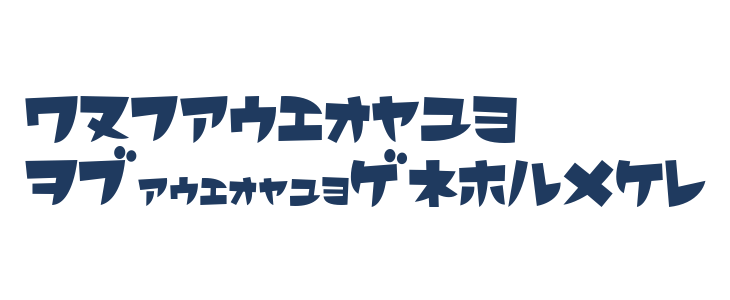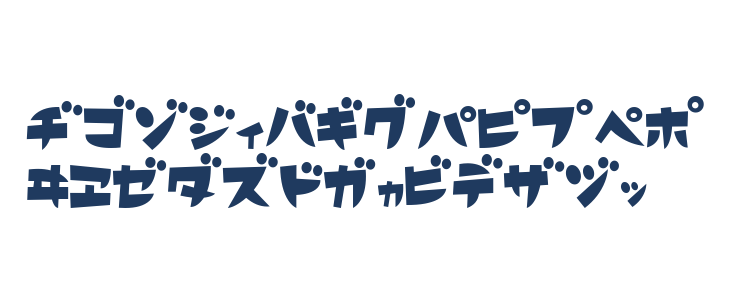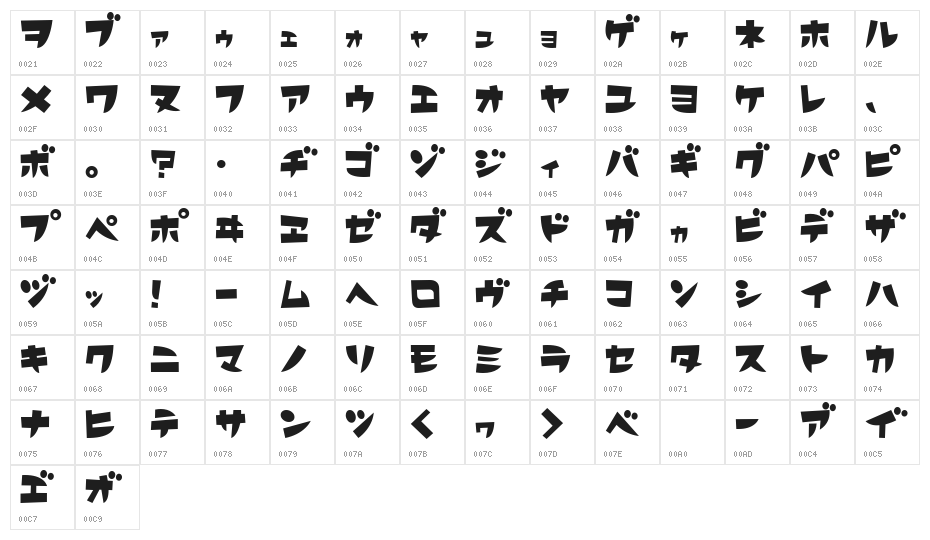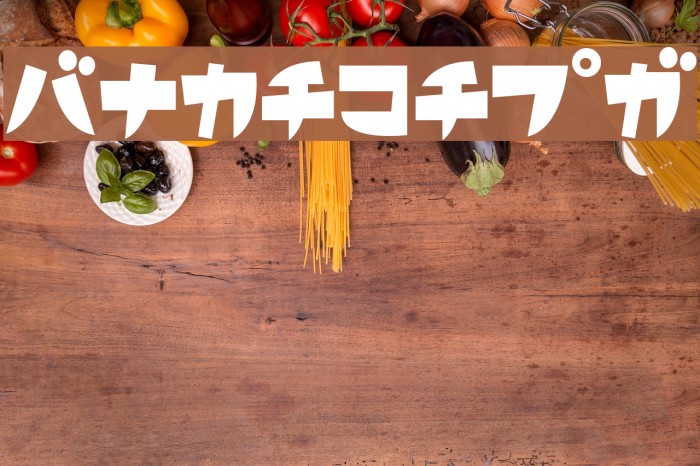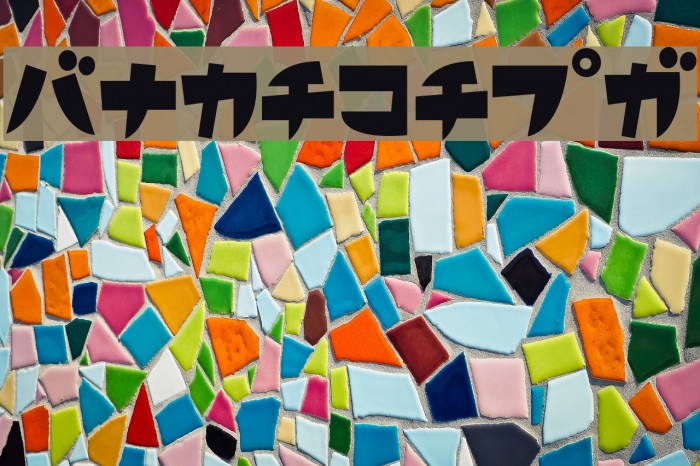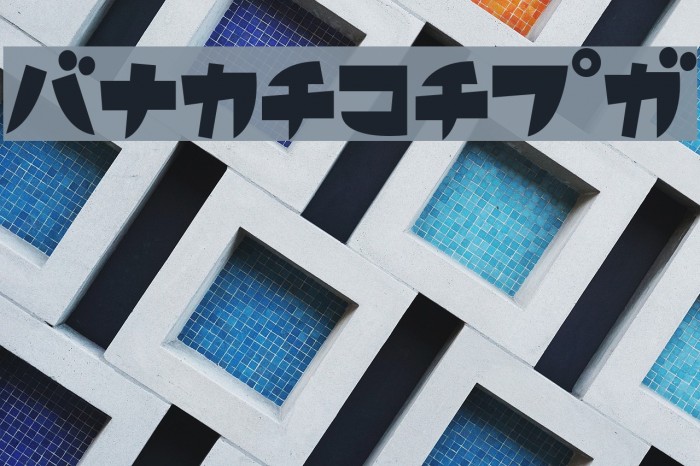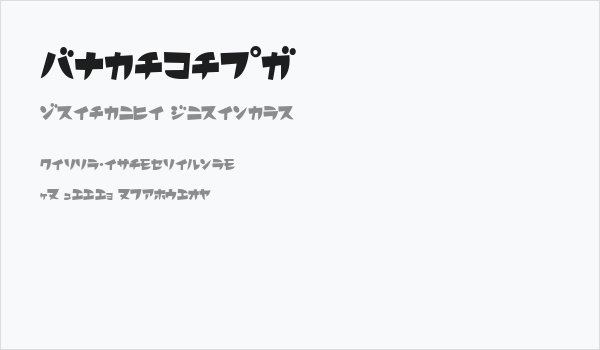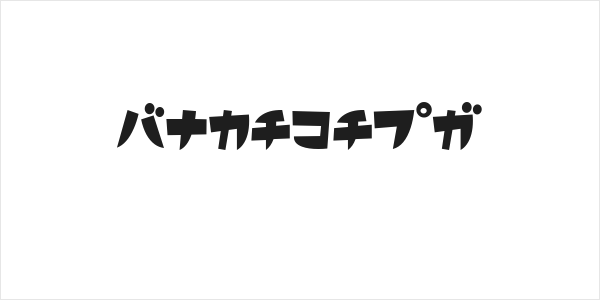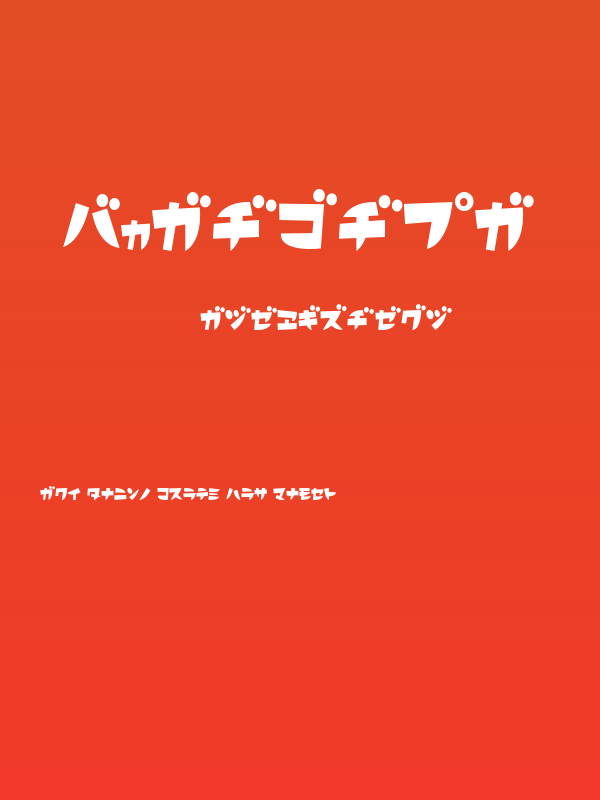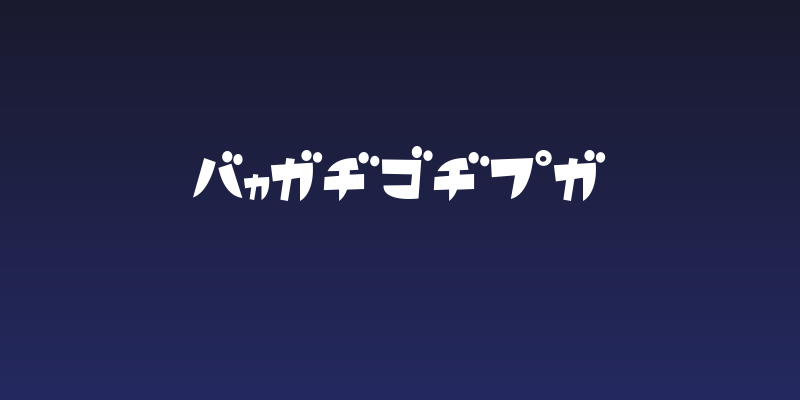
FutabaKT Font
FutabaKT Description
This font features bold, angular characters with a distinct geometric style. The strokes are thick and consistent, creating a strong visual impact. The characters are slightly condensed, giving a compact appearance that enhances readability while maintaining a unique aesthetic. The design is modern and dynamic, suitable for attention-grabbing headlines or branding materials. The uniformity in stroke width and the sharp angles contribute to a cohesive and powerful look, making it ideal for projects that require a bold statement.
| Proposed Projects | Ideal for branding, advertising, posters, and headlines that need a strong visual impact. |